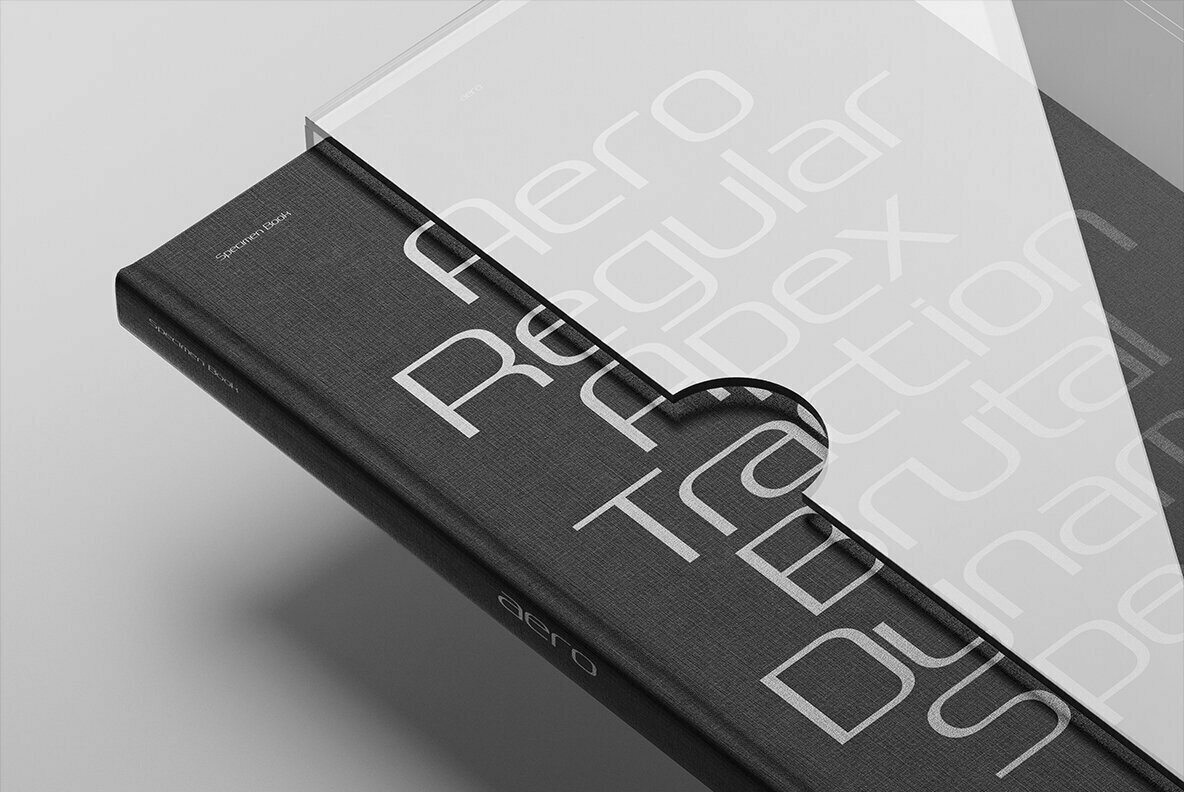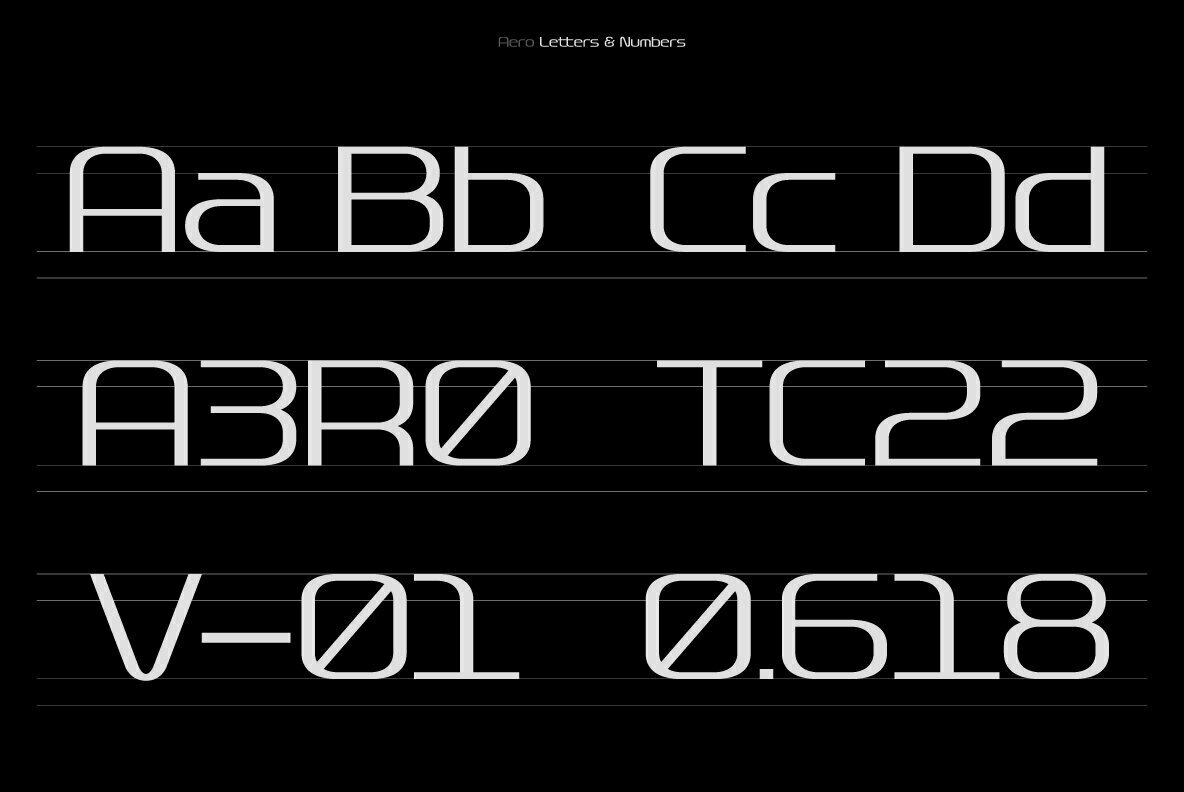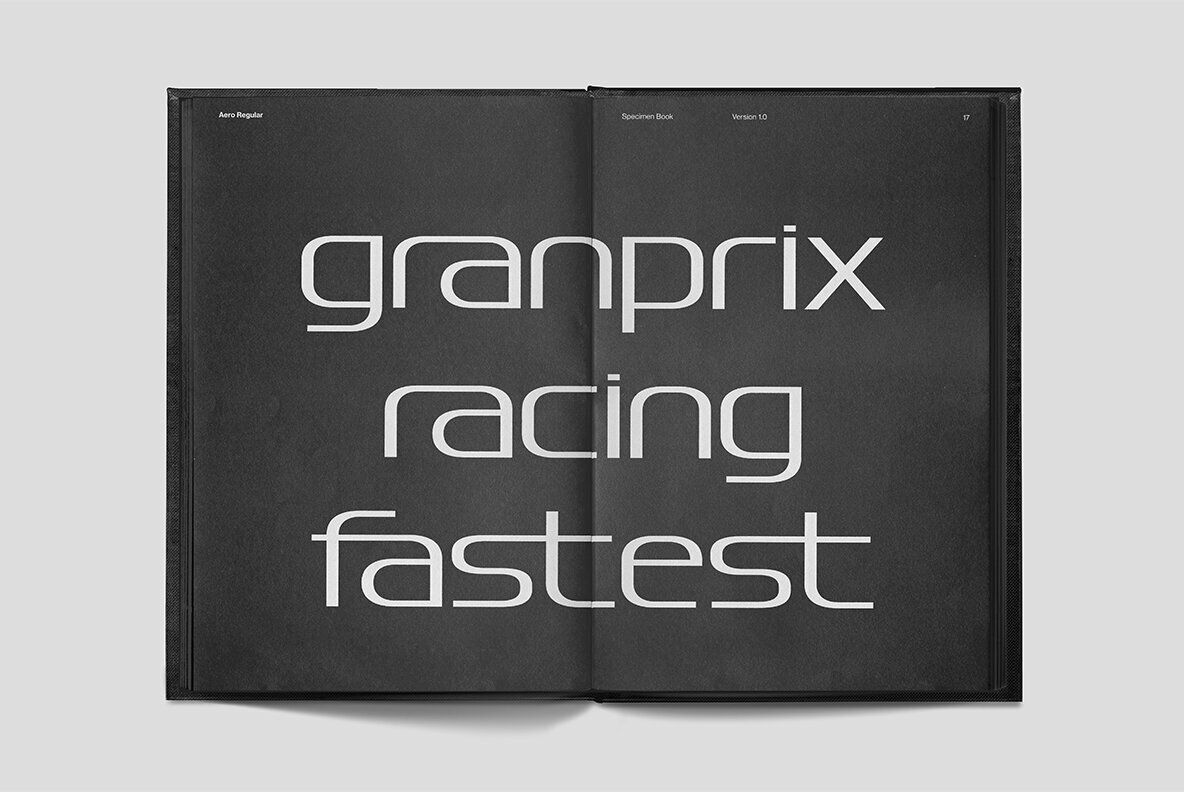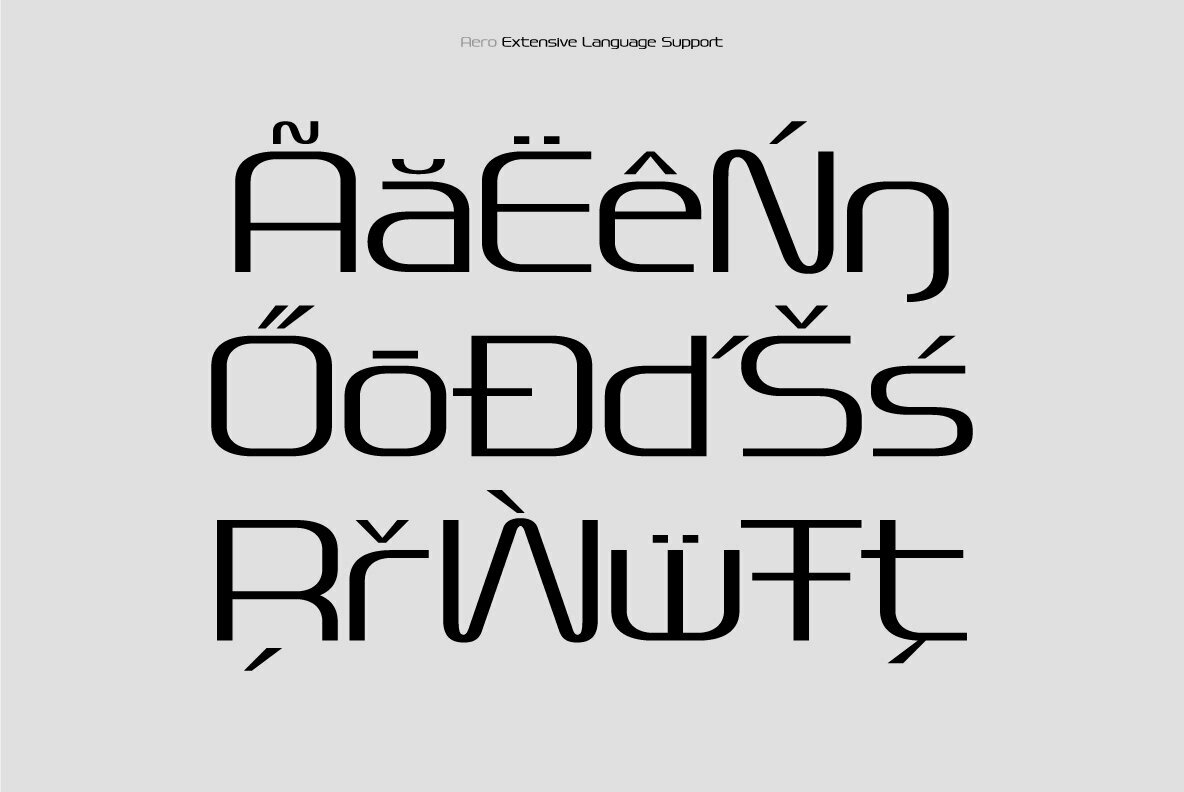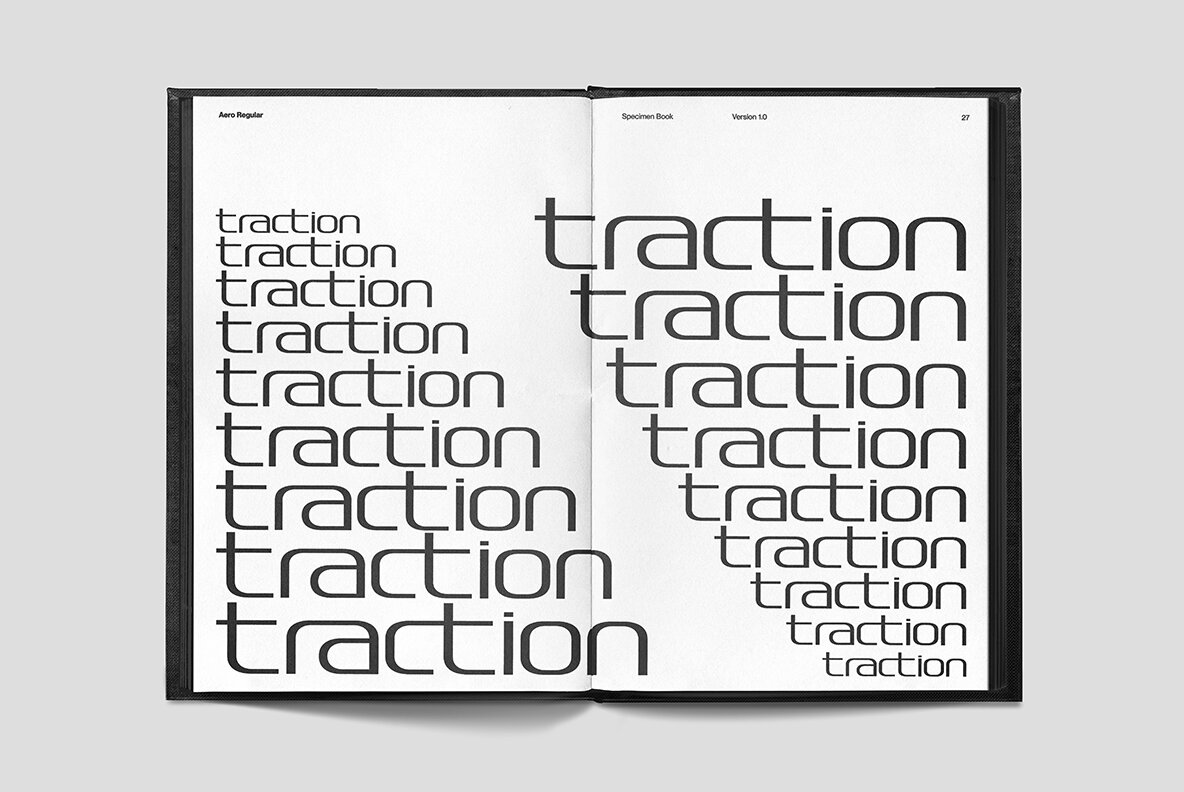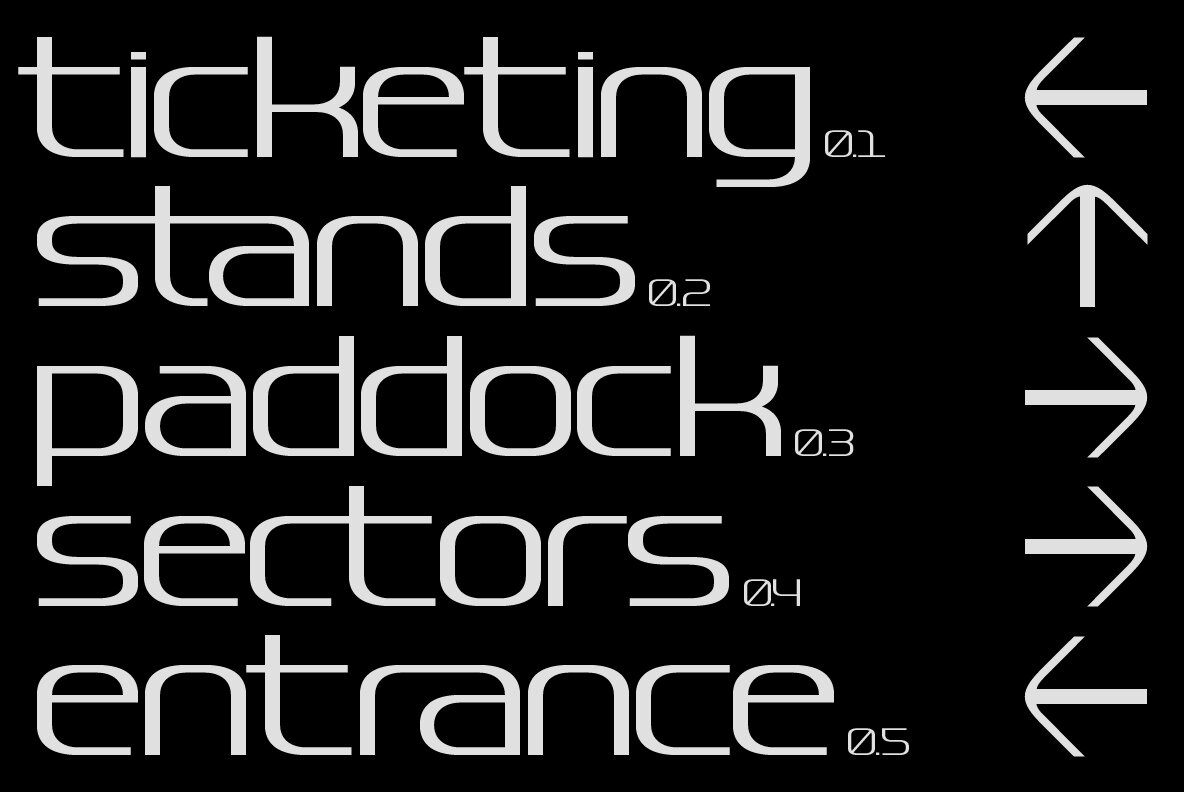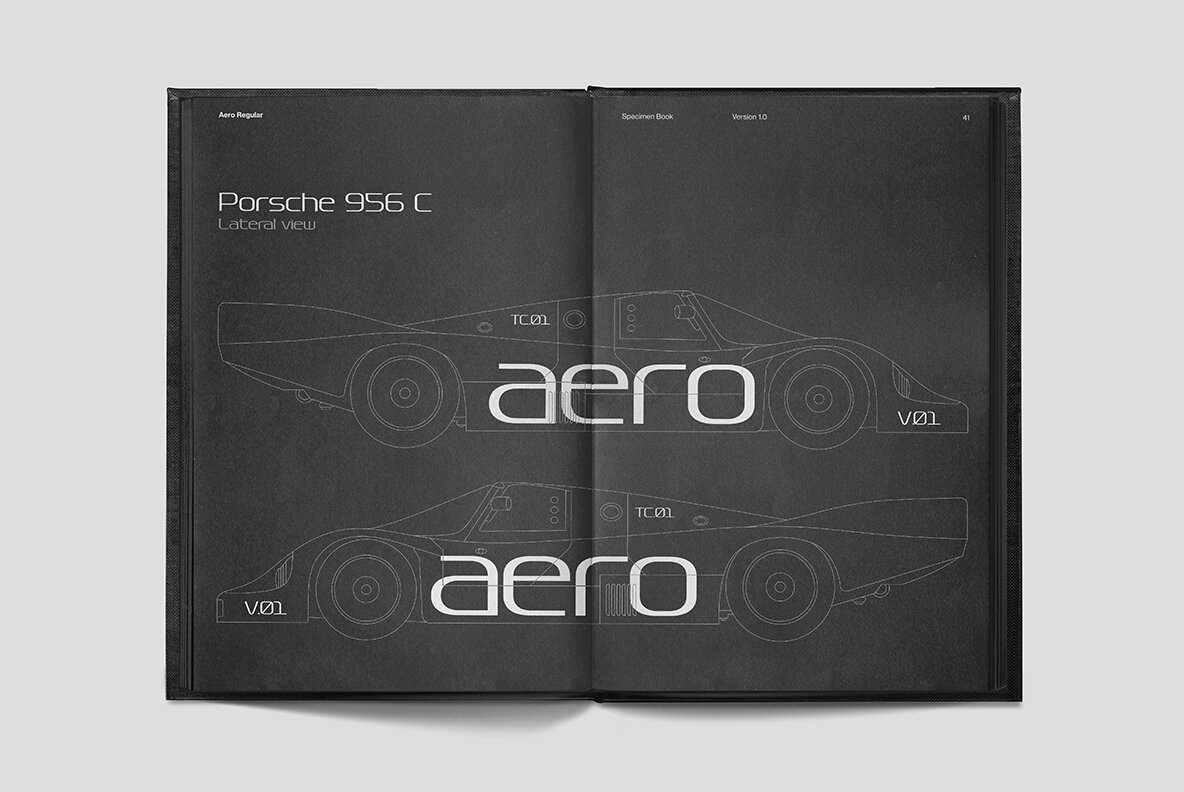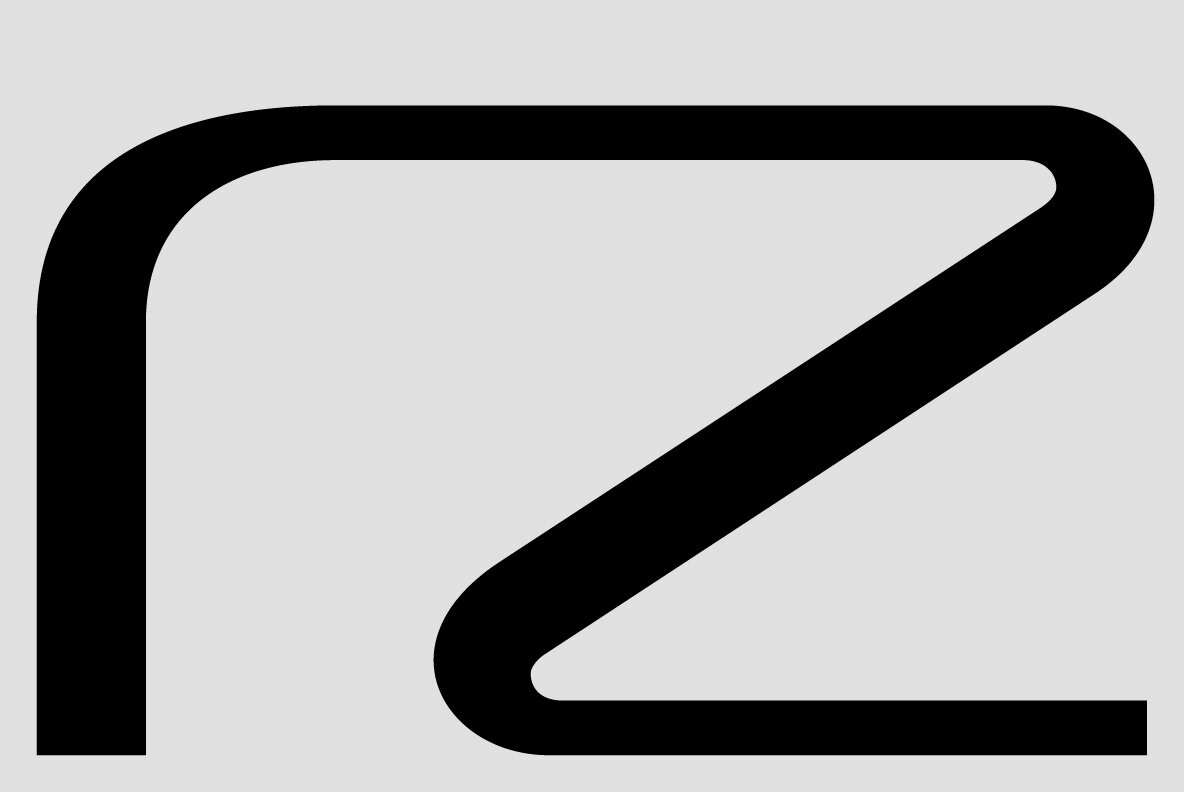
Aero Font
Aero is a typeface inspired by aerodynamics.
The letters maintain a geometrically precise and rigorous constructive grid, while following three fundamental paradigms: adherence, acceleration, and reduction, all of which align with the concept of speed. The first parameter results in a rectangular form where horizontality is emphasised by a strong contrast between the vertical and horizontal lines. This visual contrast lends to dynamism and adds a sense of acceleration to the letter. Minimal strokes have been reduced to only fundamental markings, so that each character can be formed using the most direct route or "road".
Although Aero is governed by strict structural rules, its many ligatures allow to considerably reduce the gap between the letters, favouring a fluid and continuous stroke. This makes aero versatile and effective, especially in large sizes.